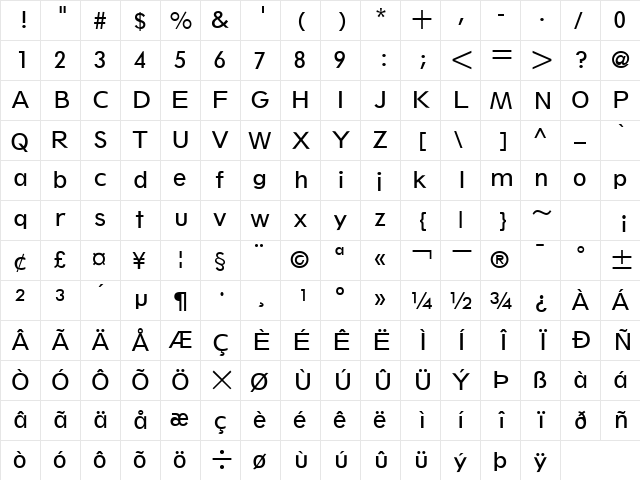
ThinxSSK Regular
Design Context for ThinxSSK Typeface
ThinxSSK offers clean, dependable letterforms without strong stylistic allegiance, making it a practical choice for designers who need flexibility. The delicate stroke weight brings airiness and refinement to layouts.
Pro Tip: Pair ThinxSSK with a font of contrasting weight or personality to build a more expressive typographic hierarchy.